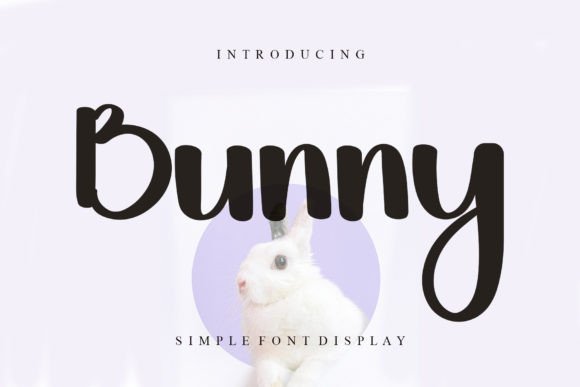
Discover the Secret to Crafting Unique Designs with Bunny Font
Have you ever found yourself stuck in a creative rut, staring at a blank page with no idea where to start? I know I have. But what if I told you that there’s a font that can bring your ideas to life and give your designs a touch of elegance and sophistication? Welcome to the world of Bunny Font, a beautiful and refined handwritten font that’s perfect for adding a personal touch to your work.
Whether you’re a seasoned designer or just starting out, Bunny Font is an invaluable asset to have in your toolkit. Its classy and modern design makes it perfect for logos, branding, invitations, and much more. With Bunny Font, you’ll be able to create designs that are both timeless and trendy, and that’s what makes it so valuable for designers like you.
Bunny Font Key Features
- Unique Characteristics: Bunny Font features a playful, hand-drawn design with bold lines and rounded edges, giving it a whimsical feel.
Bunny Font Review
Overall, I’d say the Bunny Font is a playful and whimsical addition to any design project. ✨ The rounded shapes and cute details give it a friendly feel that’s perfect for children’s books, websites, or any other project where a lighthearted tone is needed.
- The Bunny Font’s unique character set is charming and easy to read.
- The font’s weight and size options allow for a good range of design possibilities.
- The font’s rounded shapes make it feel approachable and friendly.
- ⚠️ The Bunny Font may not be suitable for formal or professional projects due to its playful nature.
- ⚠️ The font’s details can be distracting if used in large quantities or at too small a size.
- ⚠️ Some letters may not be as legible as others, particularly in italics or at certain font sizes.
Overall, the Bunny Font is a fun and versatile option for designers who want to add a touch of whimsy to their projects. While it may not be suitable for every project, it’s a great choice for those who want to create a lighthearted and approachable design.
Bunny Font is ideal for children’s books, nursery decorations, and Easter-themed designs. To get the most out of it, use it in conjunction with pastel colors and playful graphics. Experiment with different font sizes and styles to create a whimsical feel.